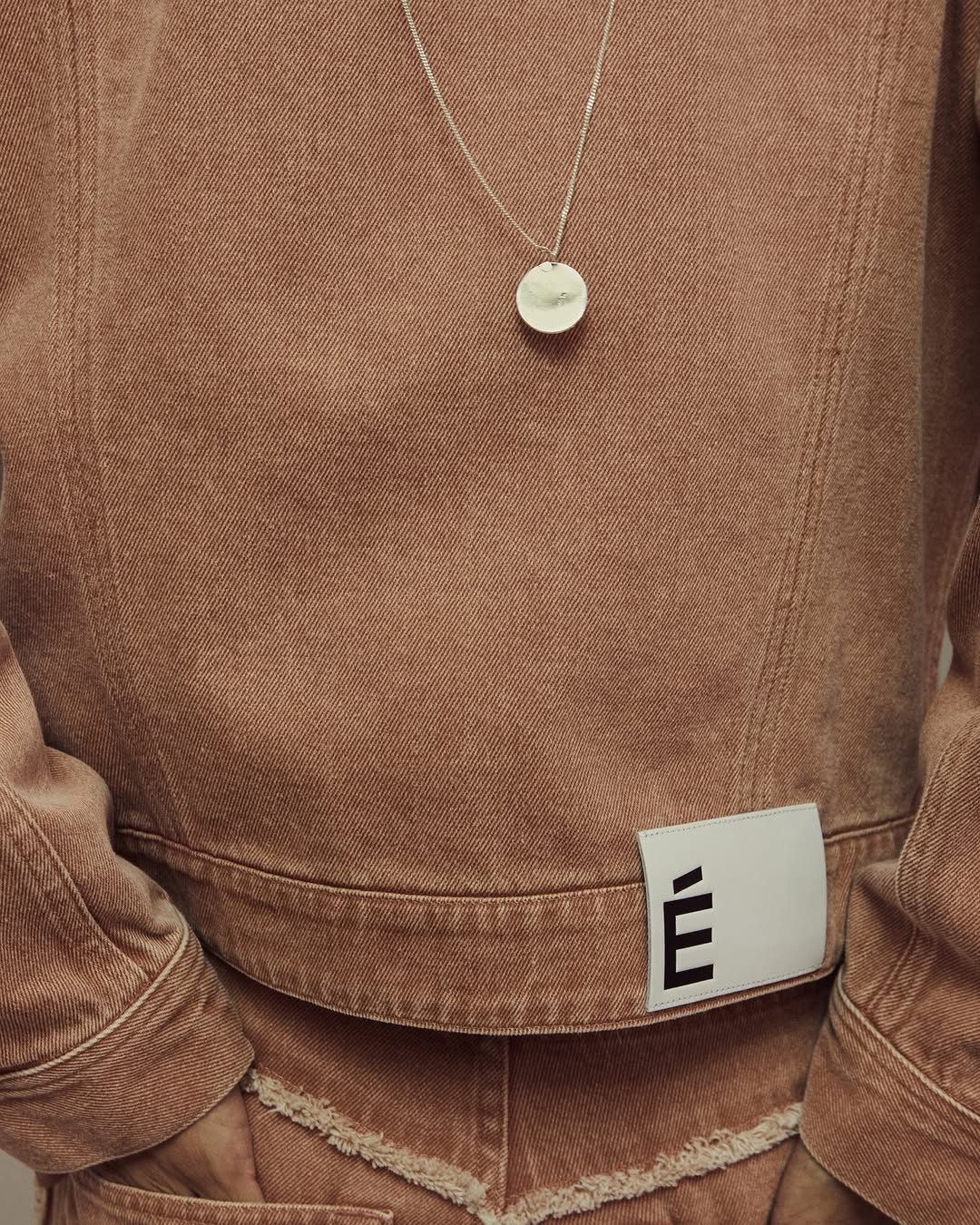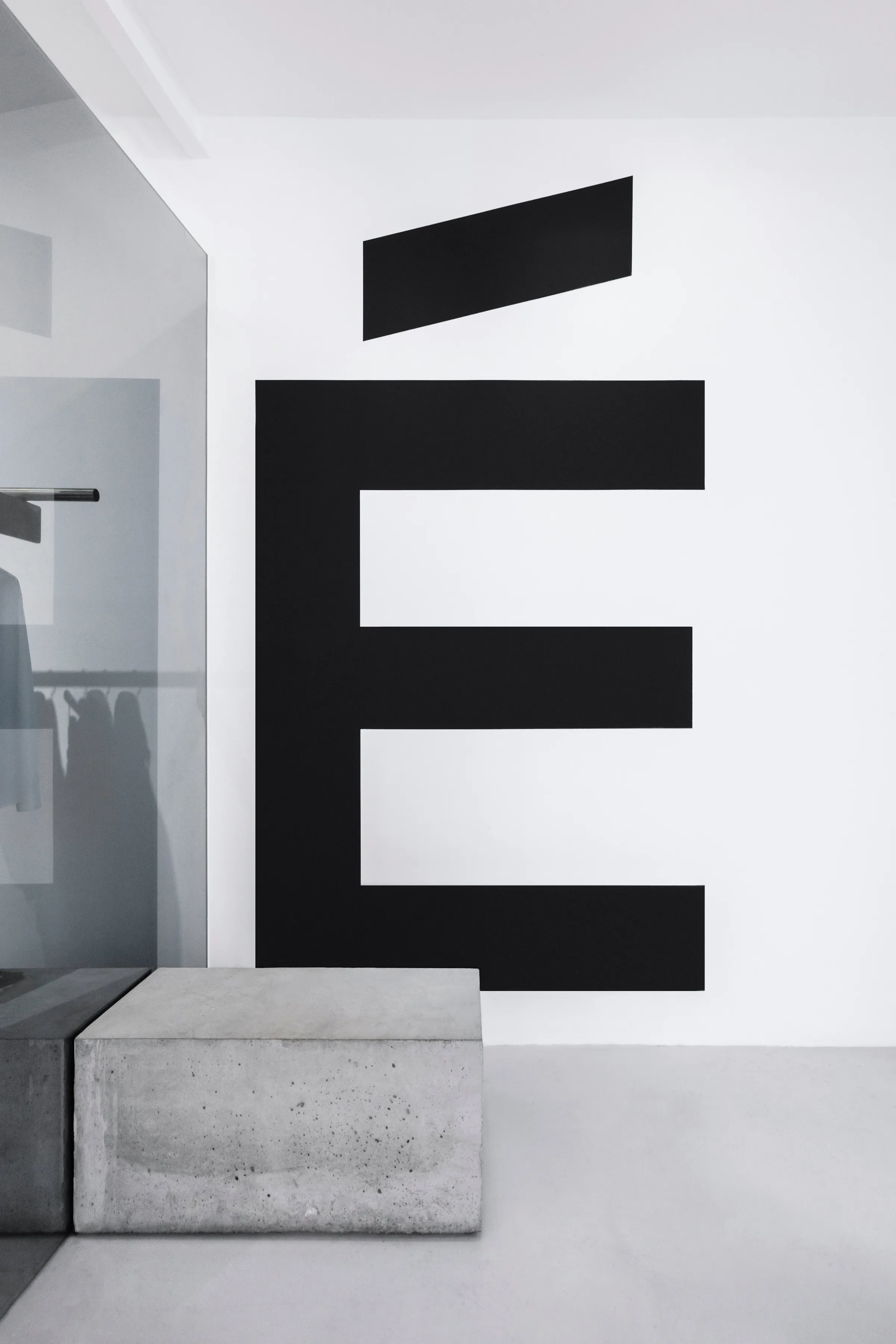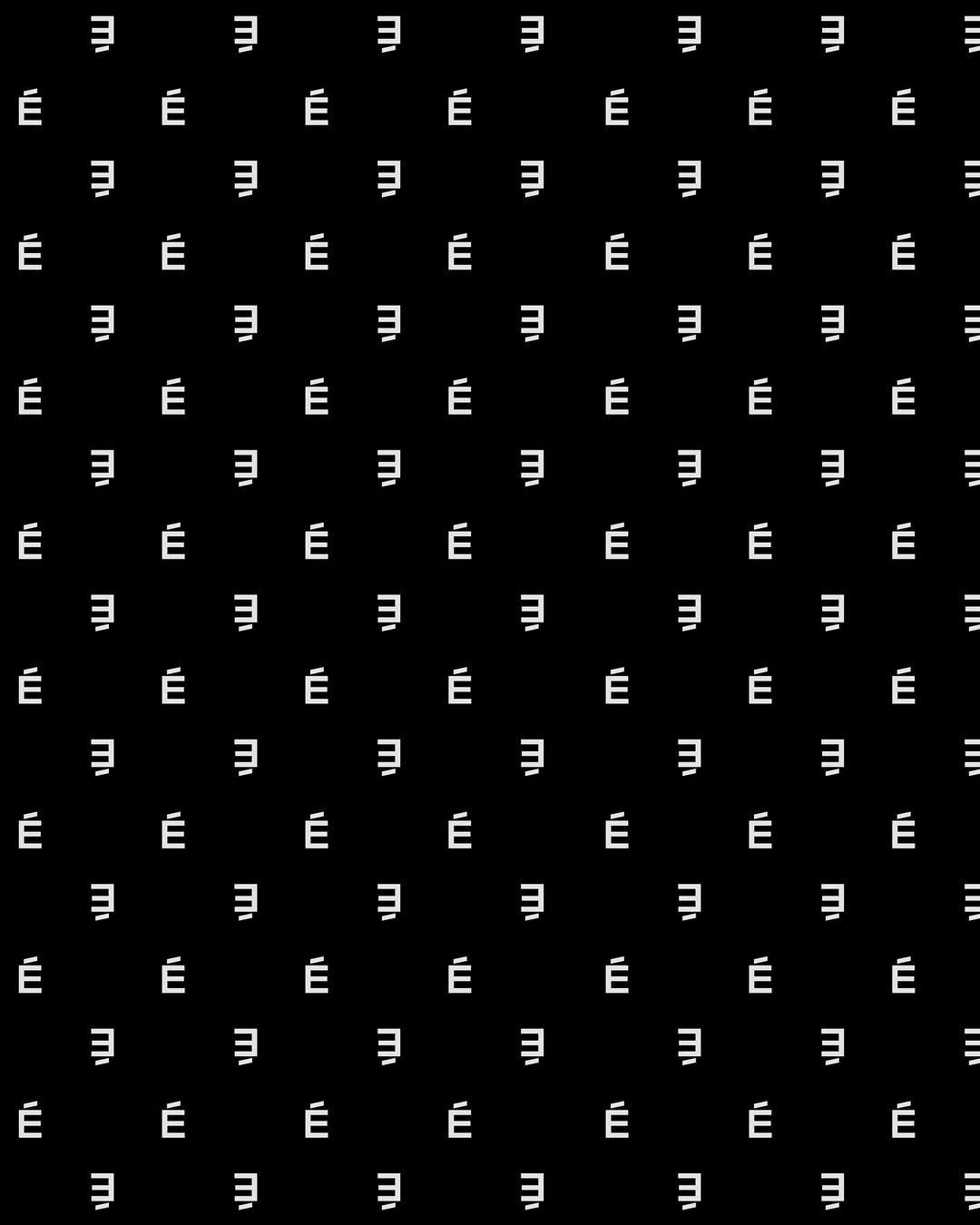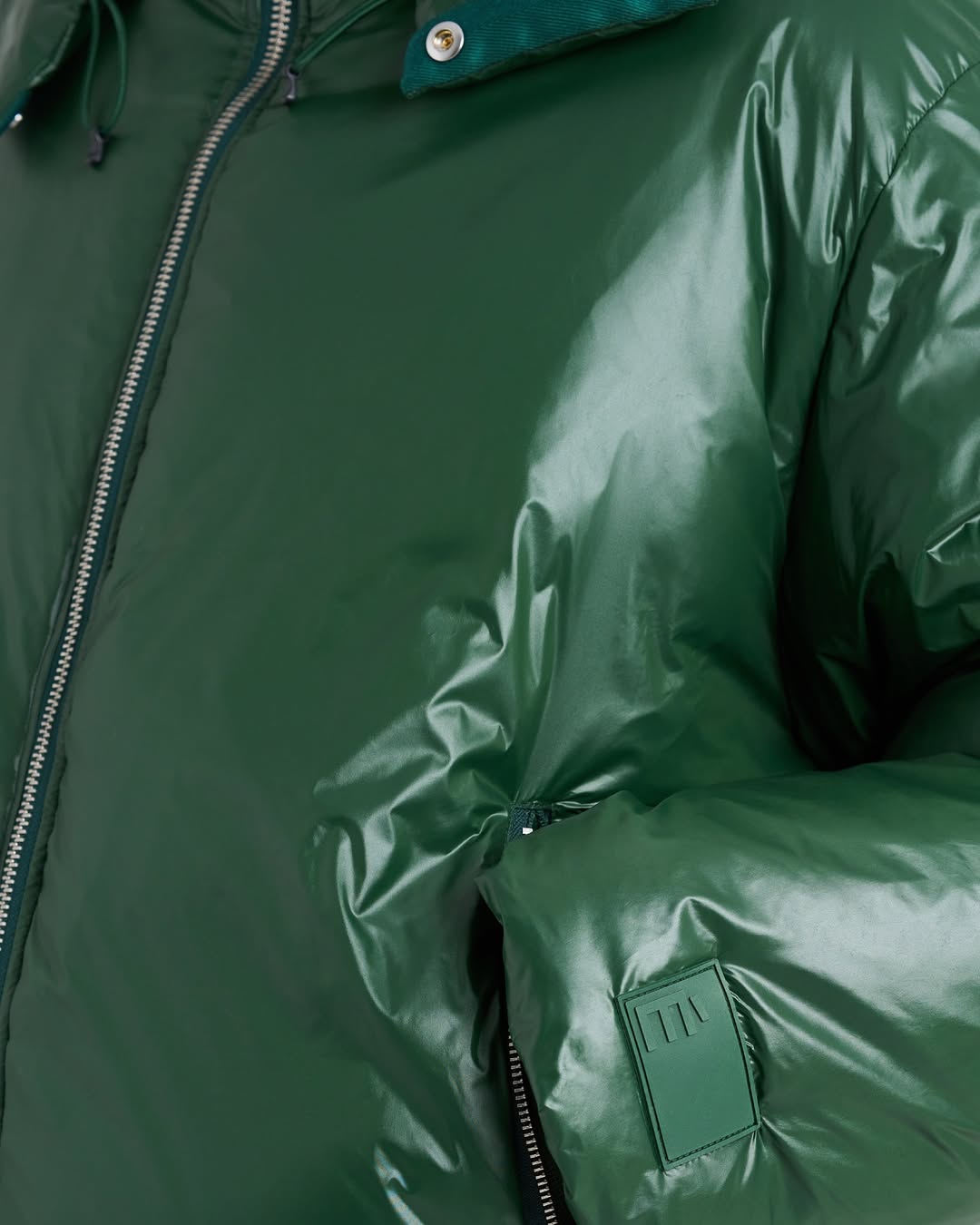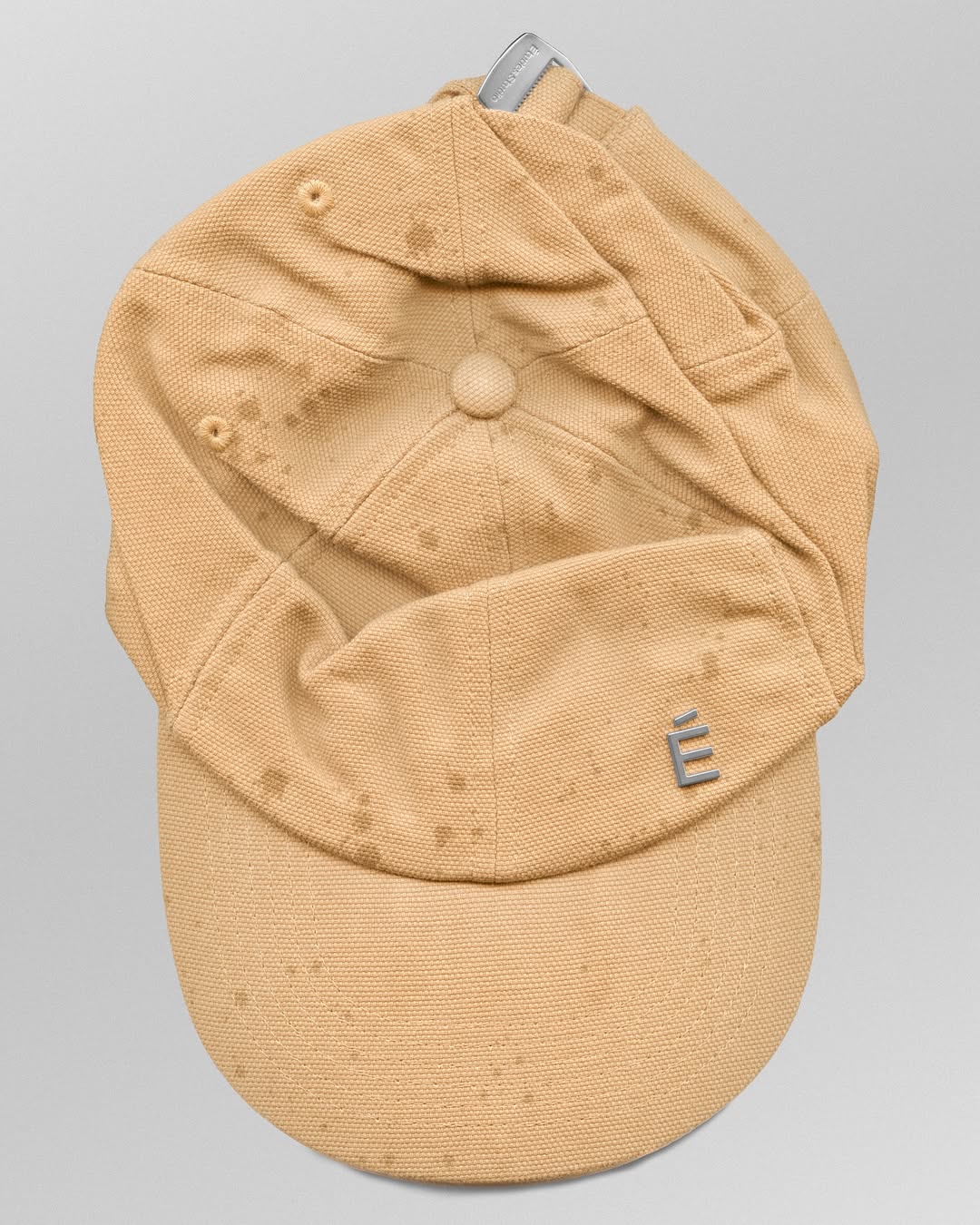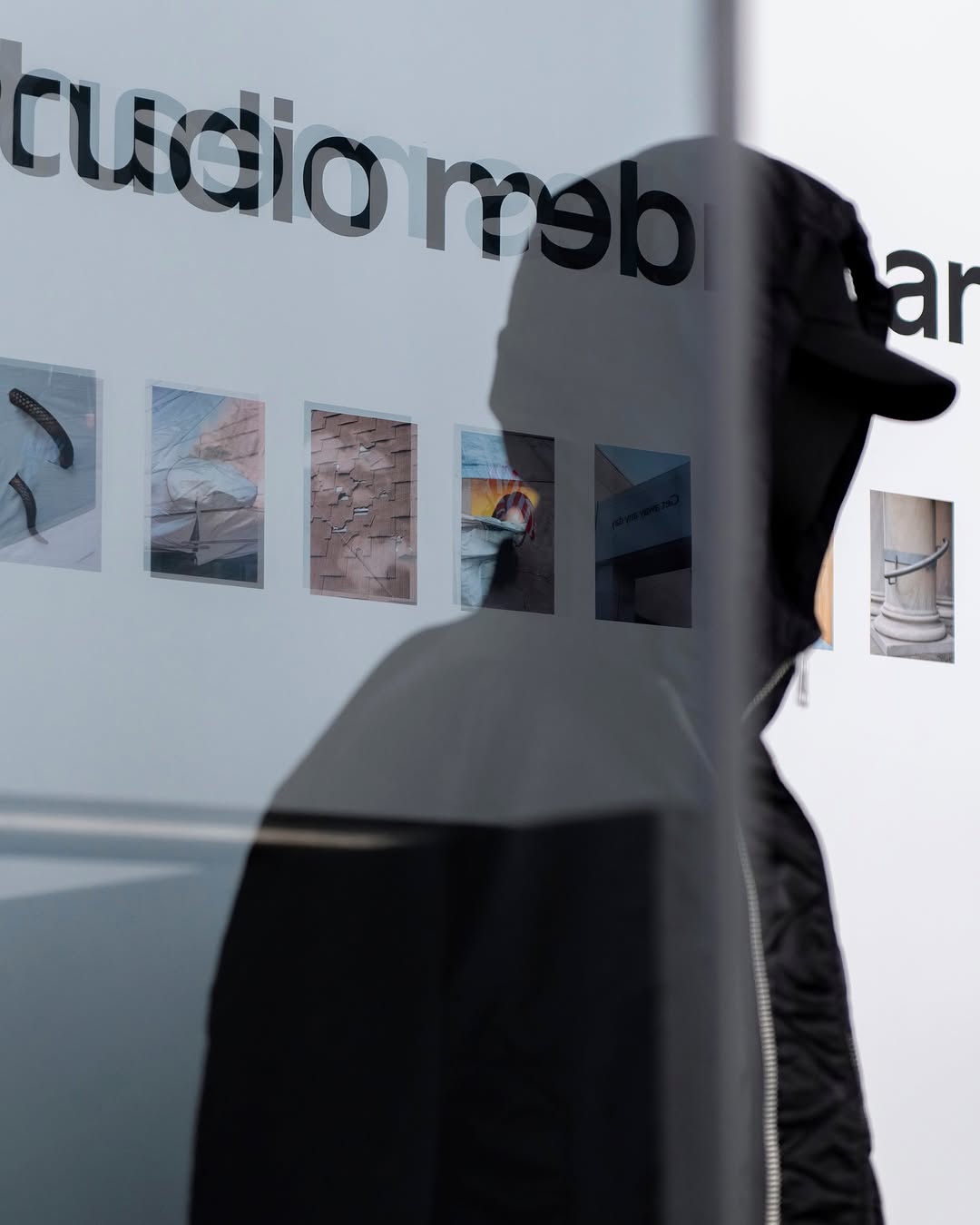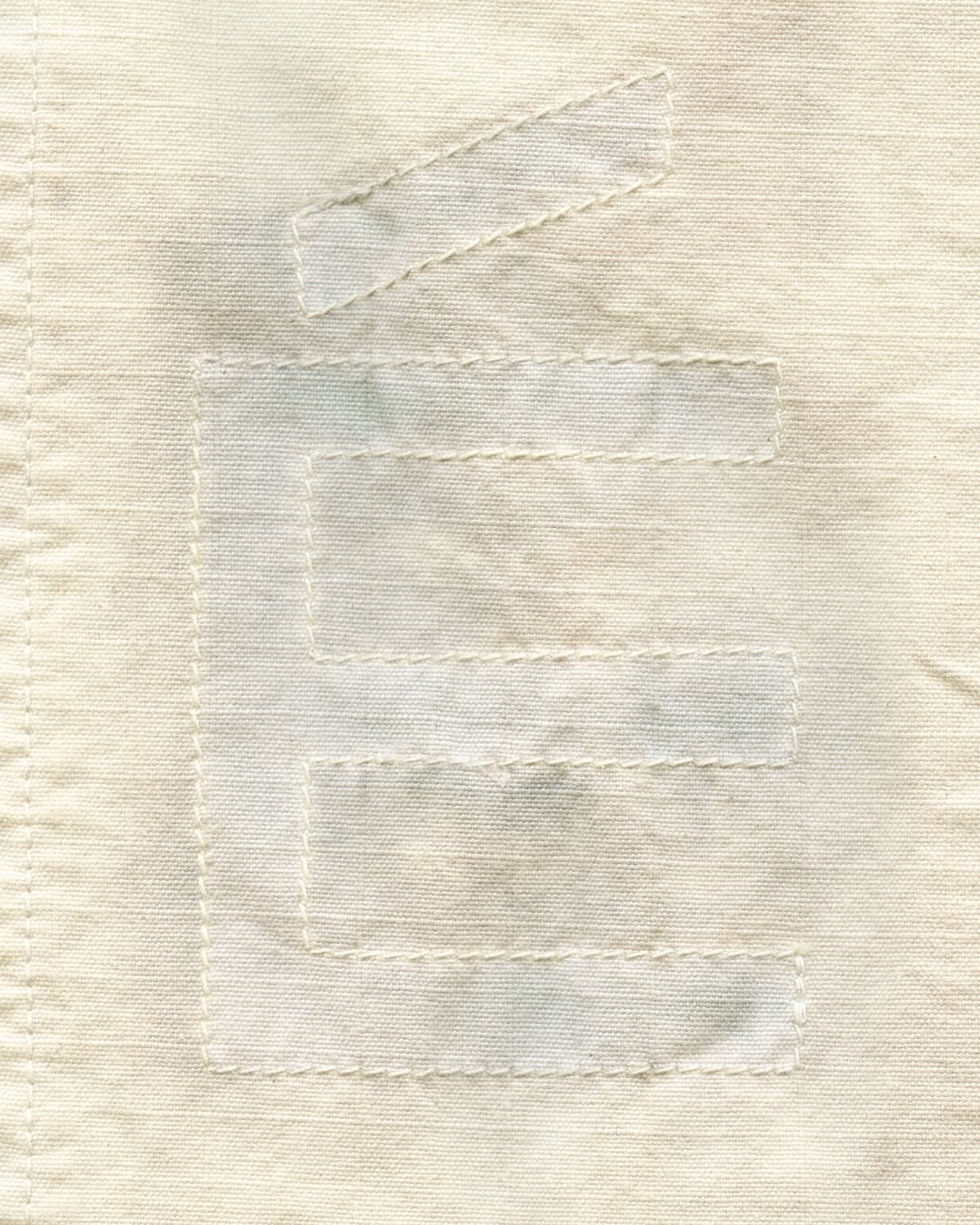
Custom typeface designed and developed by OTT in collaboration with Spassky Fischer and Études Studio in 2023-2024. This typeface is designed in a single weight and is used for the Études Studio logo, the brand’s visual identity, and in the design of the garments. (All images © Études Studio 2025). (Font engineering by Wei Huang)